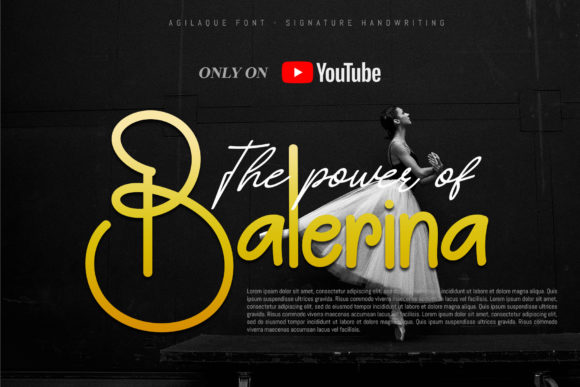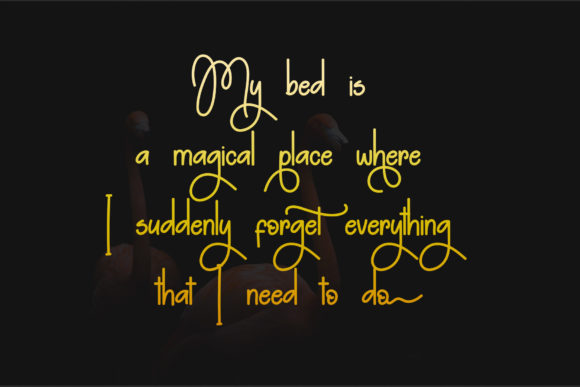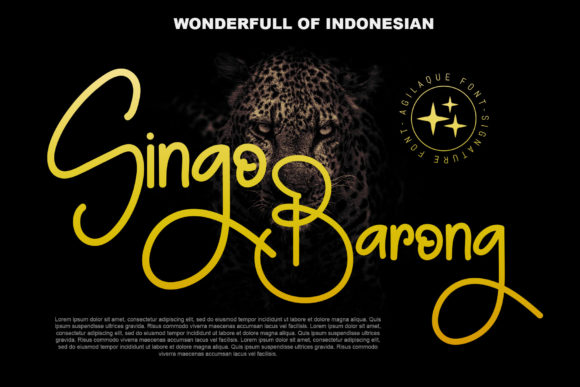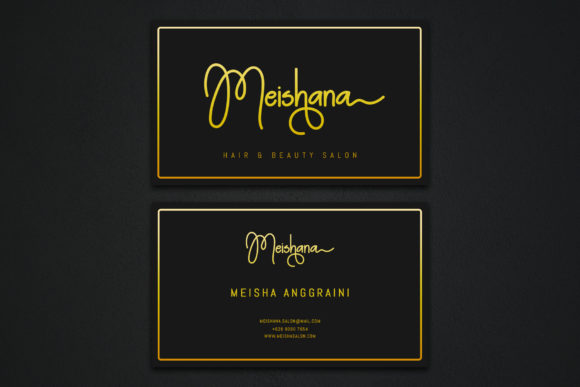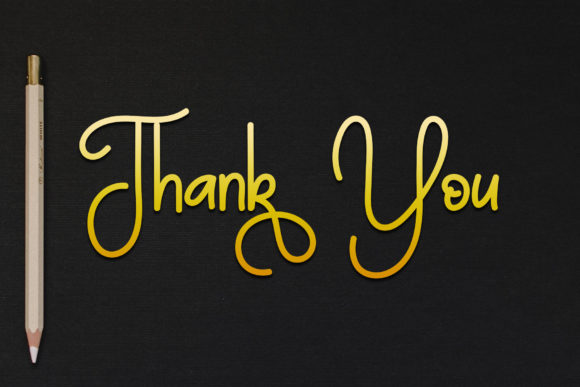
Introducing Agilaque Font: Elevate Your Designs with Elegance and Sophistication
In the world of typography, a well-crafted font can make all the difference in elevating your design projects from ordinary to extraordinary. If you’re a designer, crafter, or simply someone who appreciates the art of beautiful writing, you’re in luck. Agilaque Font is an elegant script font that embodies the perfect blend of classic sophistication and modern flair. Inspired by timeless classic calligraphy, Agilaque is poised to become your go-to font for creating stunning visual experiences.
The Inspiration Behind Agilaque
Agilaque’s design is rooted in the rich tradition of calligraphy, where the art of beautiful handwriting has been perfected over centuries. The font’s creator aimed to capture the essence of classic calligraphy while infusing it with a contemporary atmosphere. The result is a font that exudes elegance, sophistication, and a sense of refinement.
What Makes Agilaque Stand Out
So, what sets Agilaque apart from other script fonts? Here are a few key characteristics that make it a standout:
- Balanced and Varied: Agilaque’s strokes are carefully crafted to achieve a perfect balance between thickness and thinness. This balance creates a sense of harmony and visual flow, making it a joy to read and behold.
- Not Too Thin, Not Too Thick: Unlike some script fonts that may be too delicate or too bold, Agilaque strikes the perfect chord. Its strokes are substantial enough to convey elegance, yet refined enough to maintain a sense of airiness and lightness.
- Contemporary Atmosphere: While Agilaque is inspired by classic calligraphy, it also boasts a distinctly modern feel. This blend of old and new makes it an excellent choice for designers seeking to create fresh, yet timeless designs.
Agilaque’s versatility makes it suitable for a wide range of design projects, including:
- Branding and Logo Design: Add a touch of sophistication to your brand identity with Agilaque’s elegant script.
- Wedding and Event Stationery: Create beautiful, bespoke stationery that reflects the special occasion’s elegance and joy.
- Packaging Design: Elevate your product packaging with Agilaque’s refined, high-end aesthetic.
- Digital and Print Media: Use Agilaque to add a touch of luxury to your digital and print materials, such as magazines, brochures, and advertisements.
Tips for Using Agilaque Effectively
To get the most out of Agilaque, consider the following tips:
- Pair with Contrasting Fonts: Combine Agilaque with a clean, sans-serif font to create visual interest and contrast.
- Experiment with Colors: Agilaque looks stunning in a range of colors, from rich blacks and dark grays to metallic golds and soft pastels.
- Pay Attention to Spacing: Make sure to adjust the spacing between letters and words to ensure optimal readability and flow.
Agilaque Font is an exceptional addition to any designer’s toolkit. Its elegant script, balanced strokes, and contemporary atmosphere make it the perfect choice for creating sophisticated, high-end designs. Whether you’re working on a branding project, wedding stationery, or packaging design, Agilaque is sure to elevate your work and leave a lasting impression. So why wait? Discover the beauty and versatility of Agilaque Font today and take your designs to new heights.